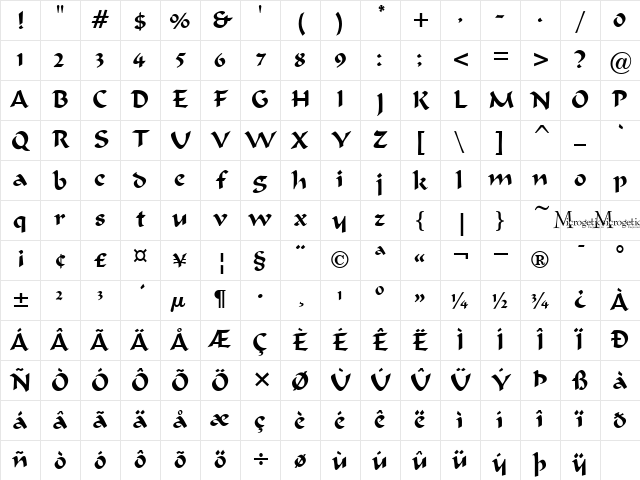
MC Mahall Regular Free Font
MC Mahall Regular
Design Context for MC Mahall
MC Mahall is a composed and adaptable typeface that performs quietly and consistently across a wide range of design contexts.